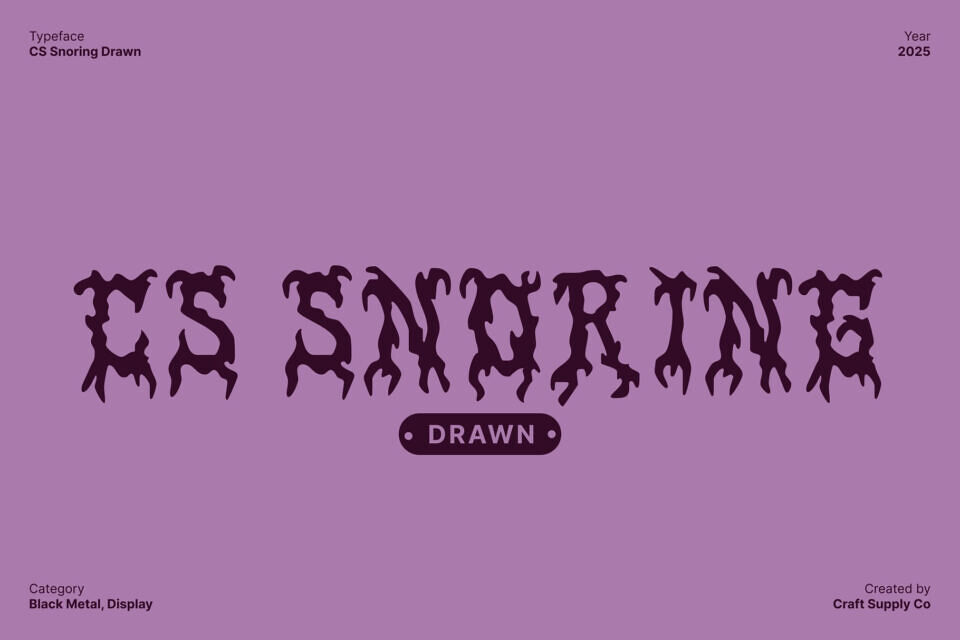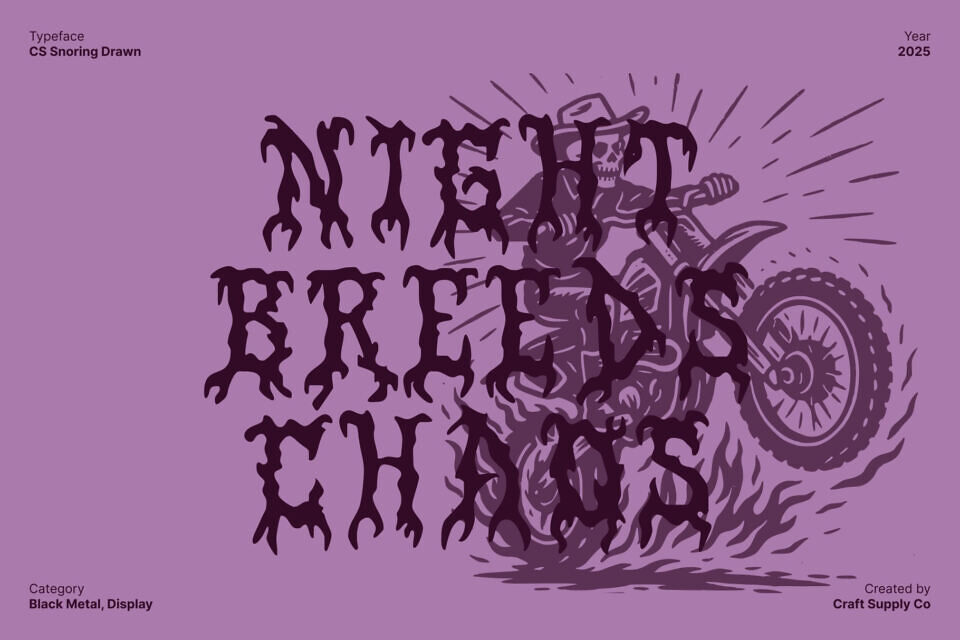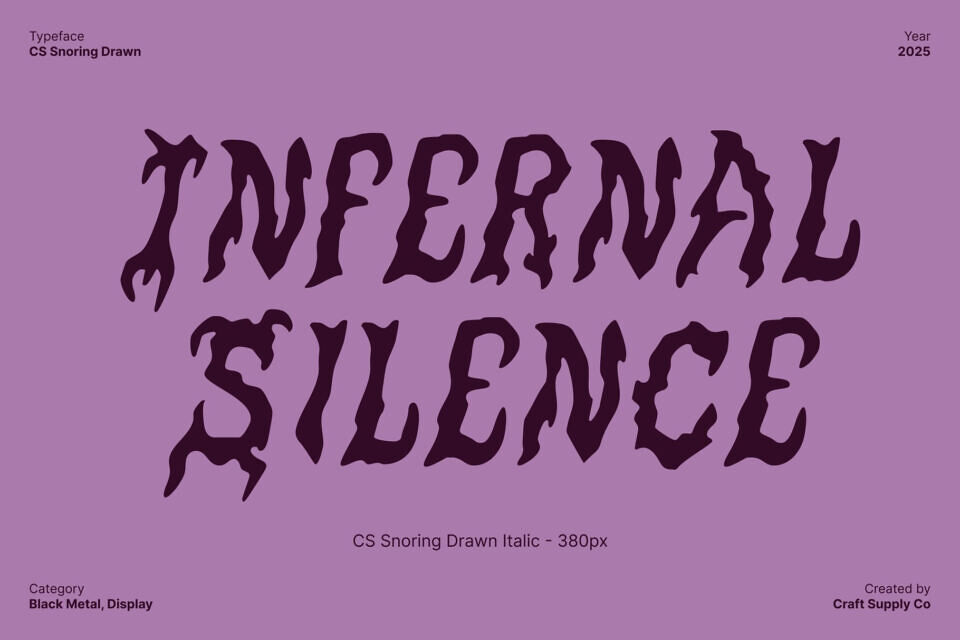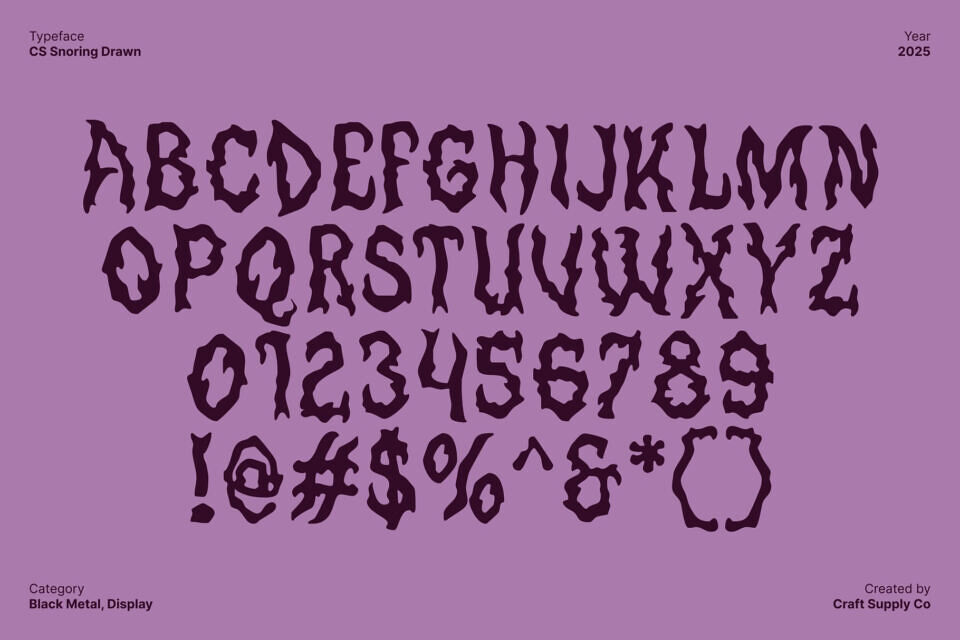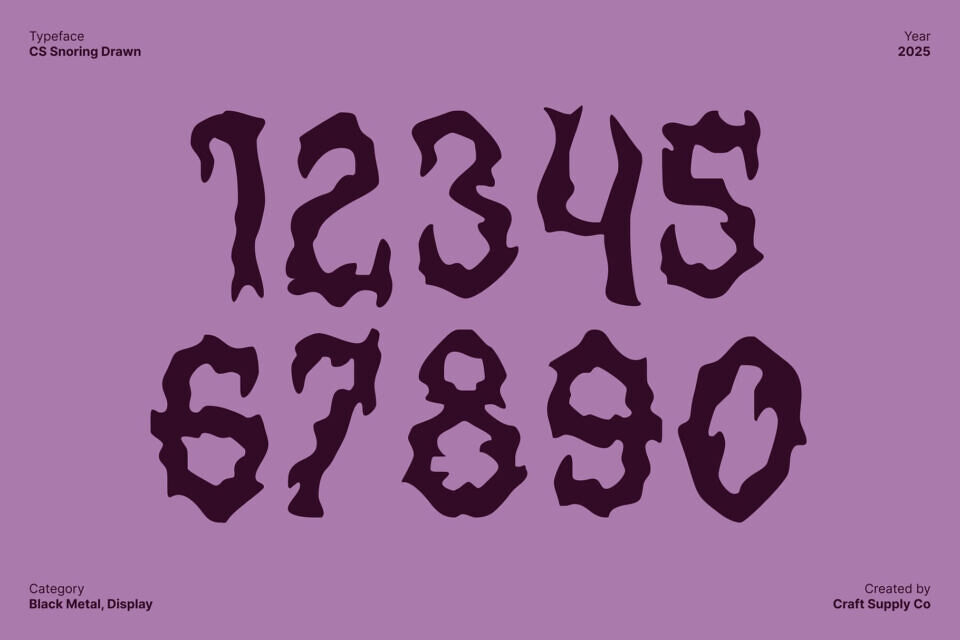
Cs Snoring Drawn Font
Snoring Drawn is a raw and commanding black metal display font that embodies the ferocity and intensity of extreme music. Its jagged spikes, sharp edges, and chaotic strokes create a bold and unsettling visual presence. Designed for maximum impact, this font is perfect for projects that demand aggression, darkness, and visual dominance.
Enhanced with a hand-drawn effect, gains additional depth, texture, and uniqueness. The rough, imperfect strokes give each letter an authentic, handcrafted feel, amplifying its raw and rebellious personality. This textured quality adds character and energy, making the font stand out in any display application.